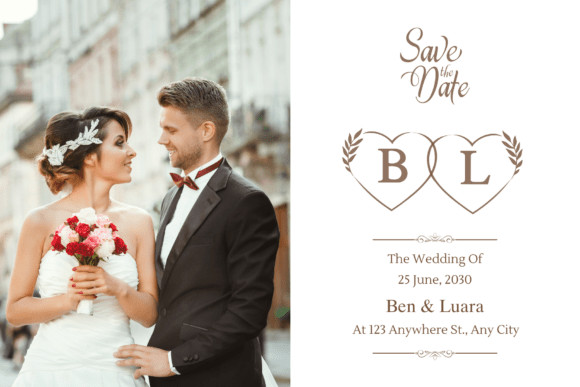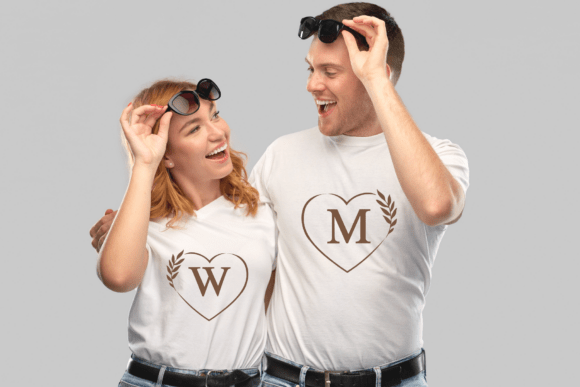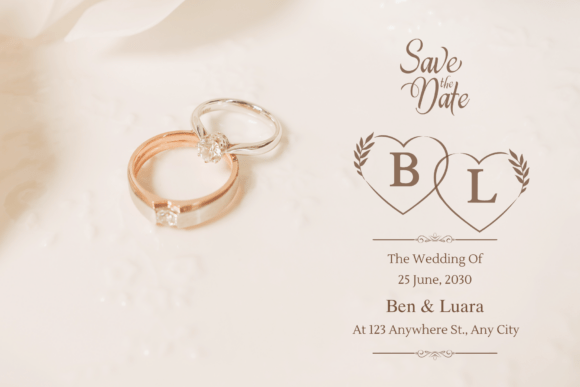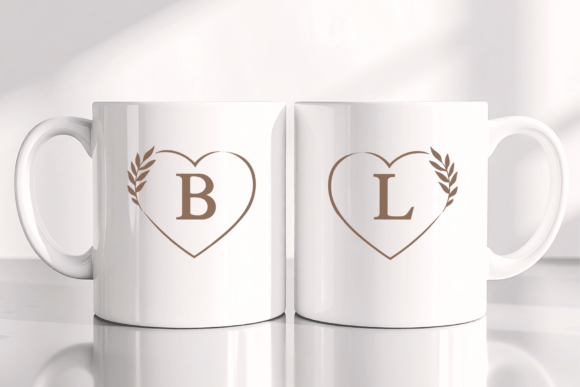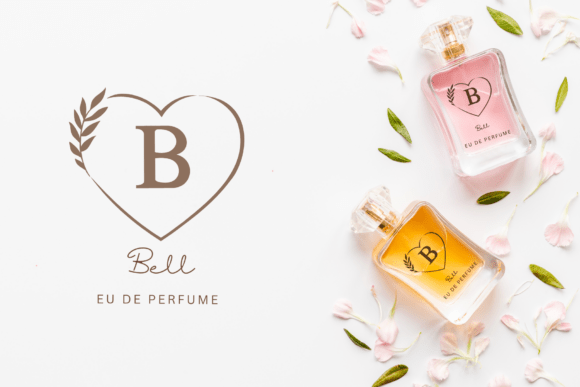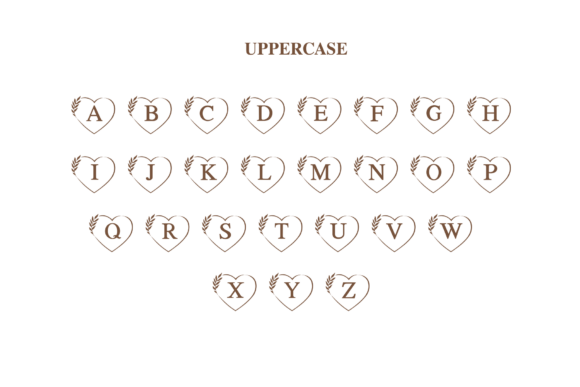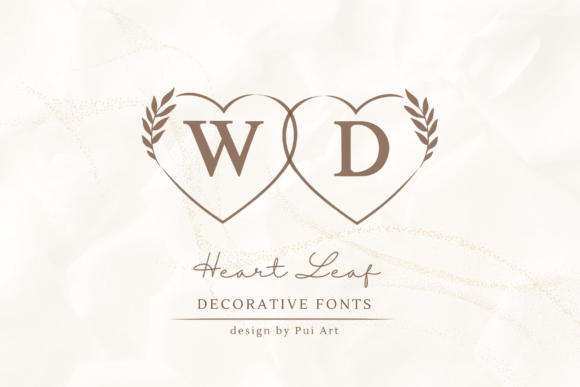
Introducing Heart Leaf Monogram Font: A Timeless and Romantic Typeface
Are you looking for a font that exudes love, elegance, and natural beauty? Look no further than the Heart Leaf Monogram Font, a stunning decorative typeface that features heart-shaped frames adorned with delicate leaves. This beautiful font is perfect for designers and crafters who want to add a touch of romance and sophistication to their creative projects.
What is Heart Leaf Monogram Font?
Heart Leaf Monogram Font is a unique and versatile typeface that combines the classic symbol of love, the heart, with the natural beauty of leaves. The font features intricate heart-shaped frames that are adorned with delicate leaves, creating a romantic and elegant look that is perfect for a variety of design applications.
Perfect for Wedding Invitations and Love-Themed Designs
One of the most popular uses for Heart Leaf Monogram Font is in wedding invitations and love-themed designs. The font’s romantic and elegant style makes it perfect for creating beautiful and memorable wedding stationery, including invitations, save-the-date cards, and thank-you notes. The font’s heart-shaped frames and delicate leaves also make it ideal for designing logos, monograms, and branding materials for businesses that specialize in love and wedding-related services.
Versatile and Easy to Use
Heart Leaf Monogram Font is not just limited to wedding invitations and love-themed designs. Its versatility and elegance make it suitable for a wide range of design applications, including:
• Personalized gifts, such as customized jewelry, candles, and home decor items
• Branding and packaging for businesses that specialize in natural and organic products
• Stationery and office supplies, such as notebooks, journals, and greeting cards
• Digital designs, including social media graphics, blog headers, and website elements
Key Features of Heart Leaf Monogram Font
Here are some of the key features that make Heart Leaf Monogram Font a standout typeface:
• Heart-shaped frames adorned with delicate leaves
• Romantic and elegant style
• Perfect for wedding invitations, love-themed designs, and natural products
• Versatile and easy to use
• Timeless and classic look
Tips for Using Heart Leaf Monogram Font
Here are some tips for using Heart Leaf Monogram Font in your designs:
• Use the font as a headline or title font to add a touch of elegance and romance to your design
• Pair the font with a simple and clean font to create a beautiful contrast
• Experiment with different colors and textures to add depth and interest to your design
• Use the font’s heart-shaped frames and leaves to create custom illustrations and graphics
Font Name Heart Leaf Monogram Font
Author Pui Art
Heart Leaf Monogram Font is a beautiful and versatile typeface that is perfect for designers and crafters who want to add a touch of romance and elegance to their creative projects. With its heart-shaped frames adorned with delicate leaves, this font is sure to bring a touch of timeless love and natural beauty to any design. Whether you’re creating wedding invitations, logos, monograms, or personalized gifts, Heart Leaf Monogram Font is the perfect choice.